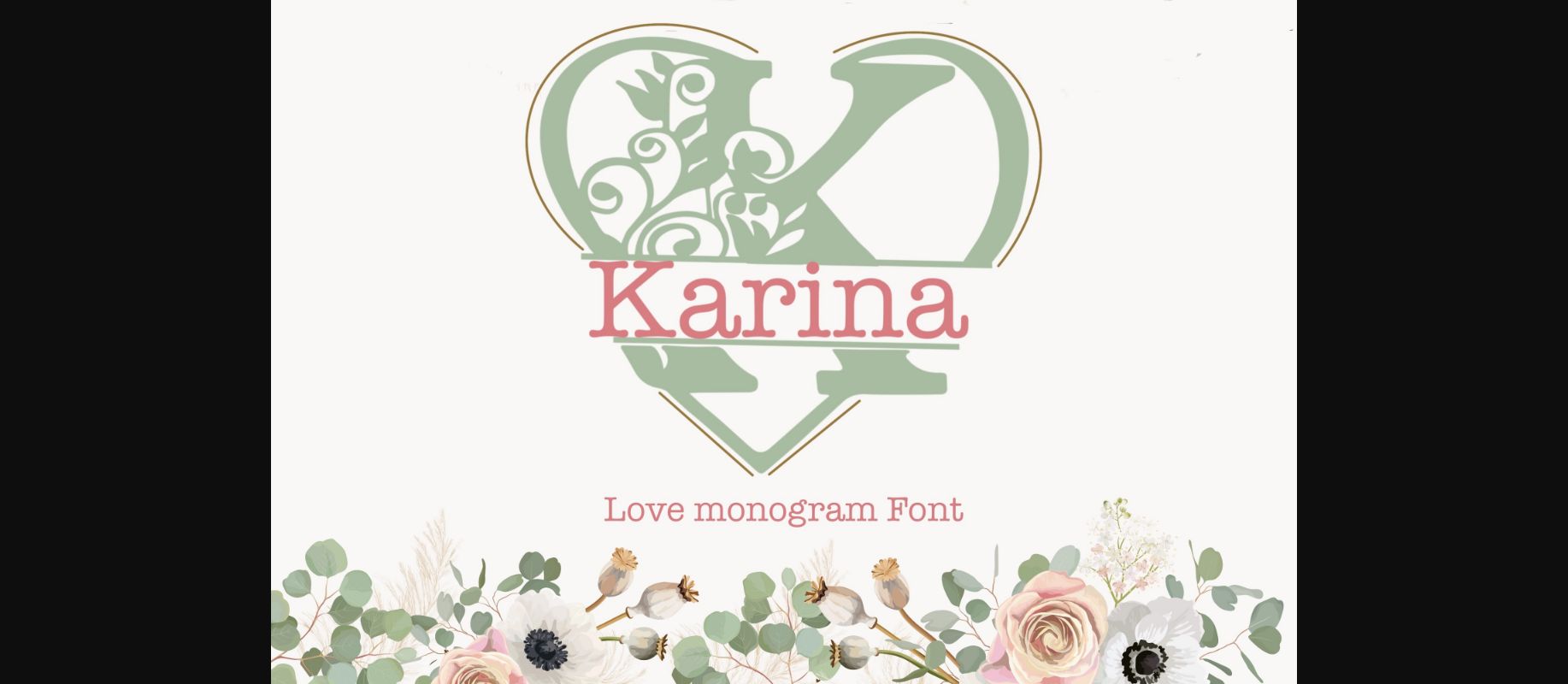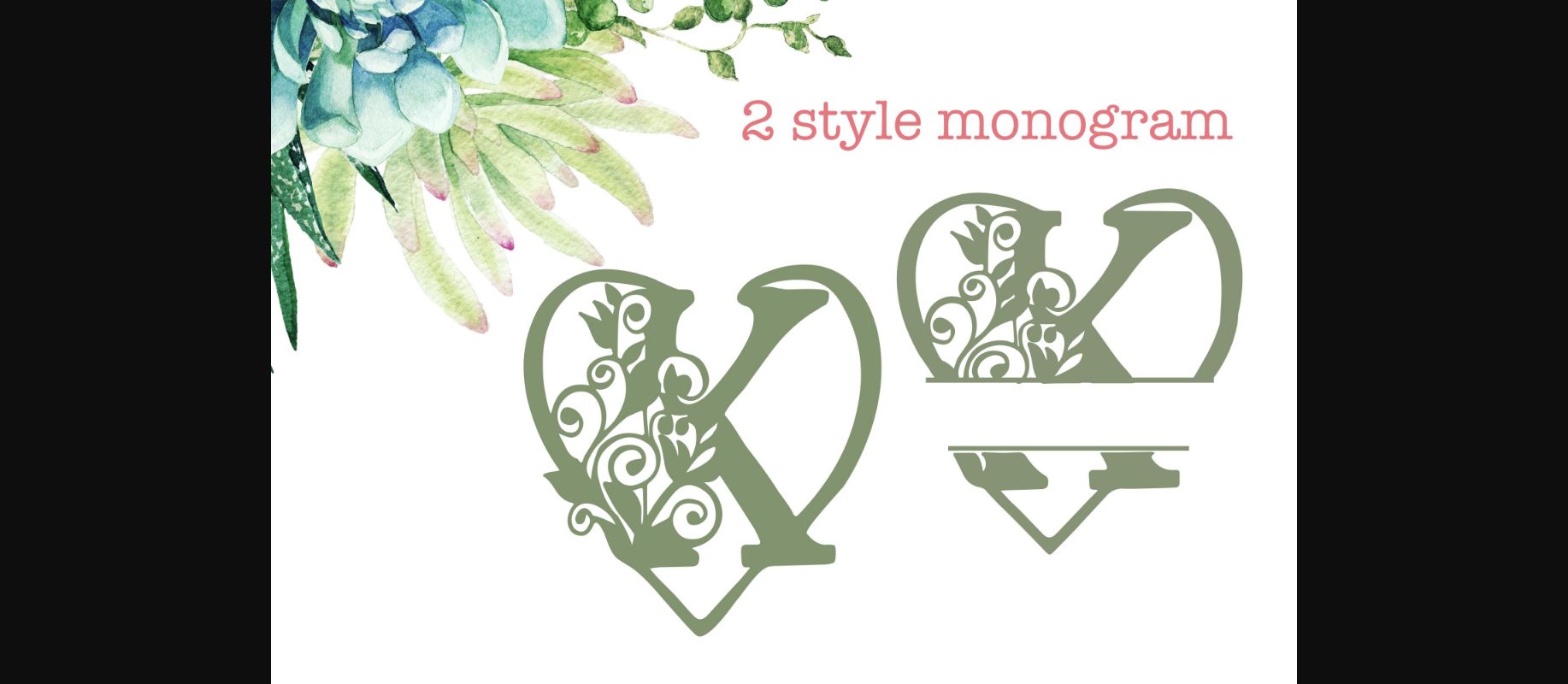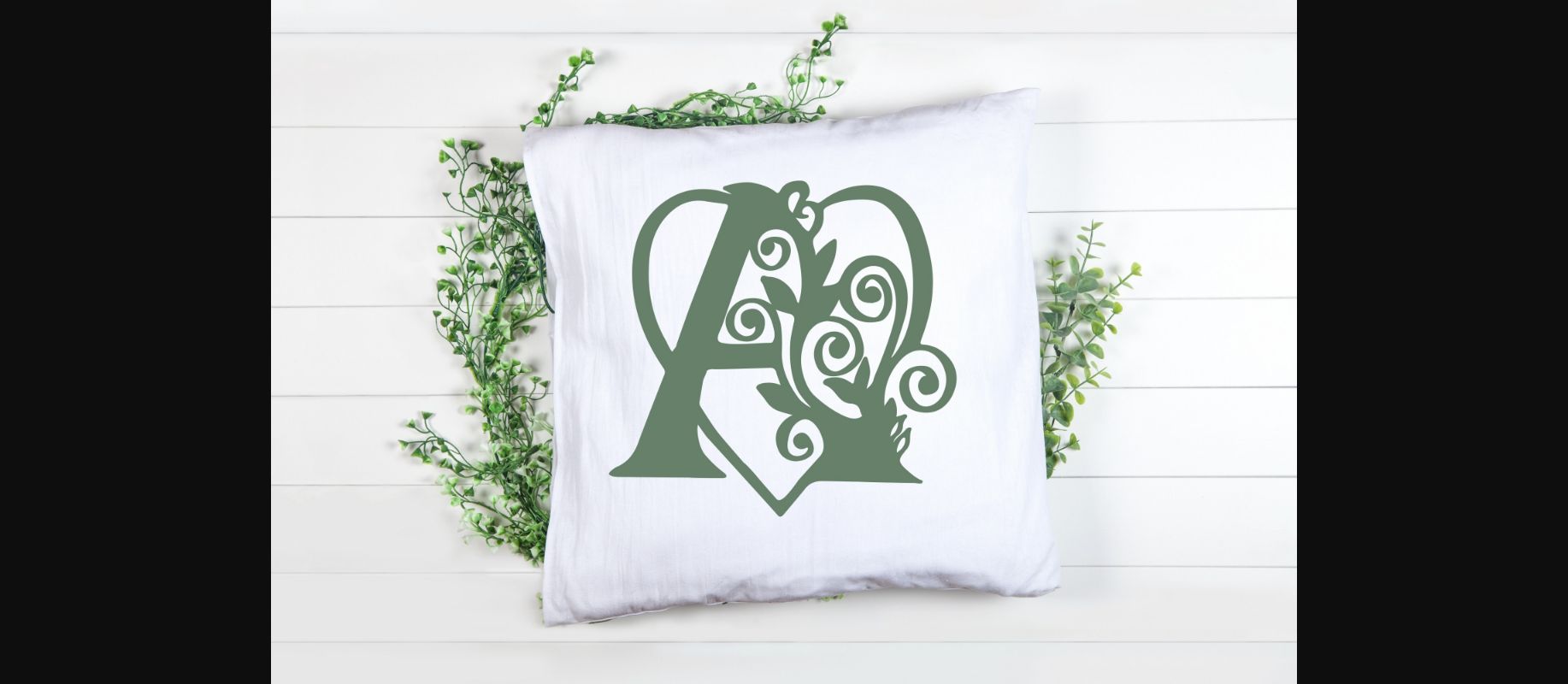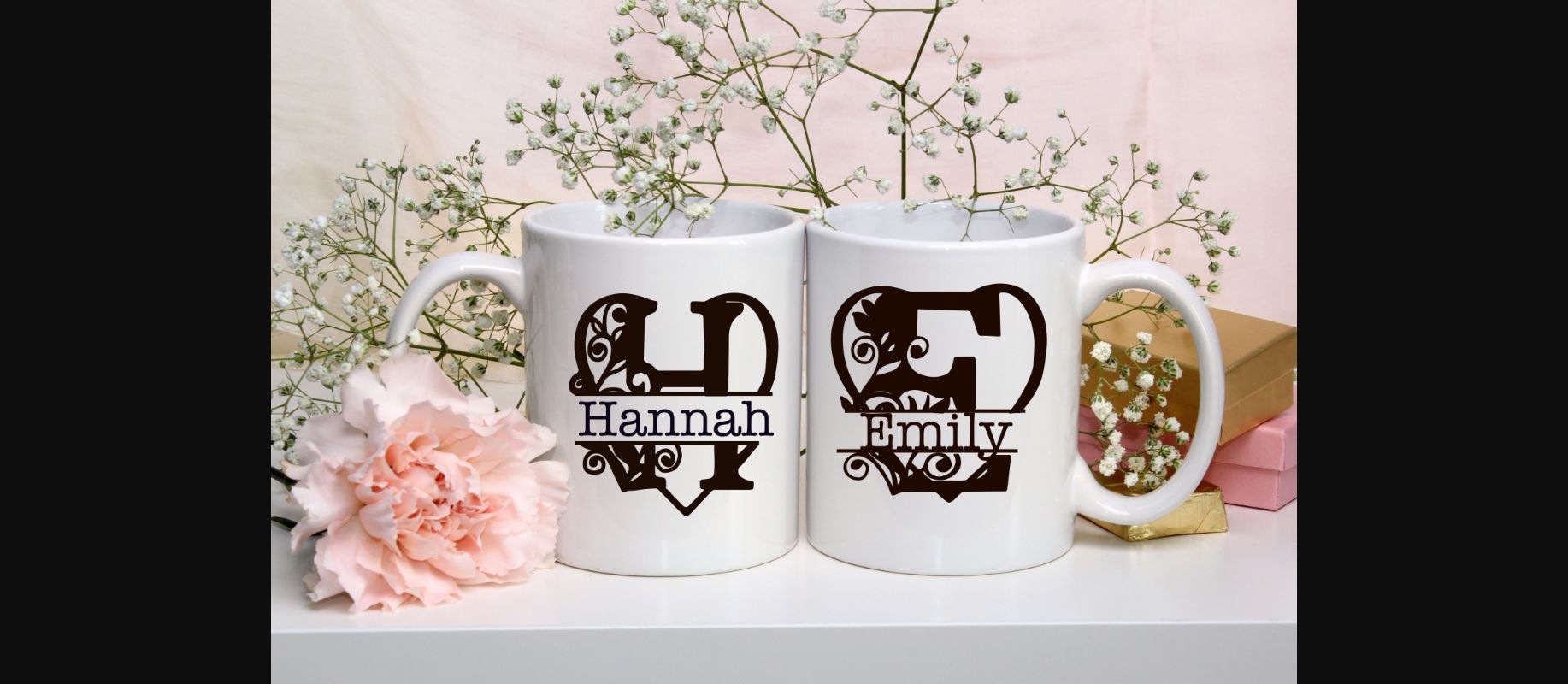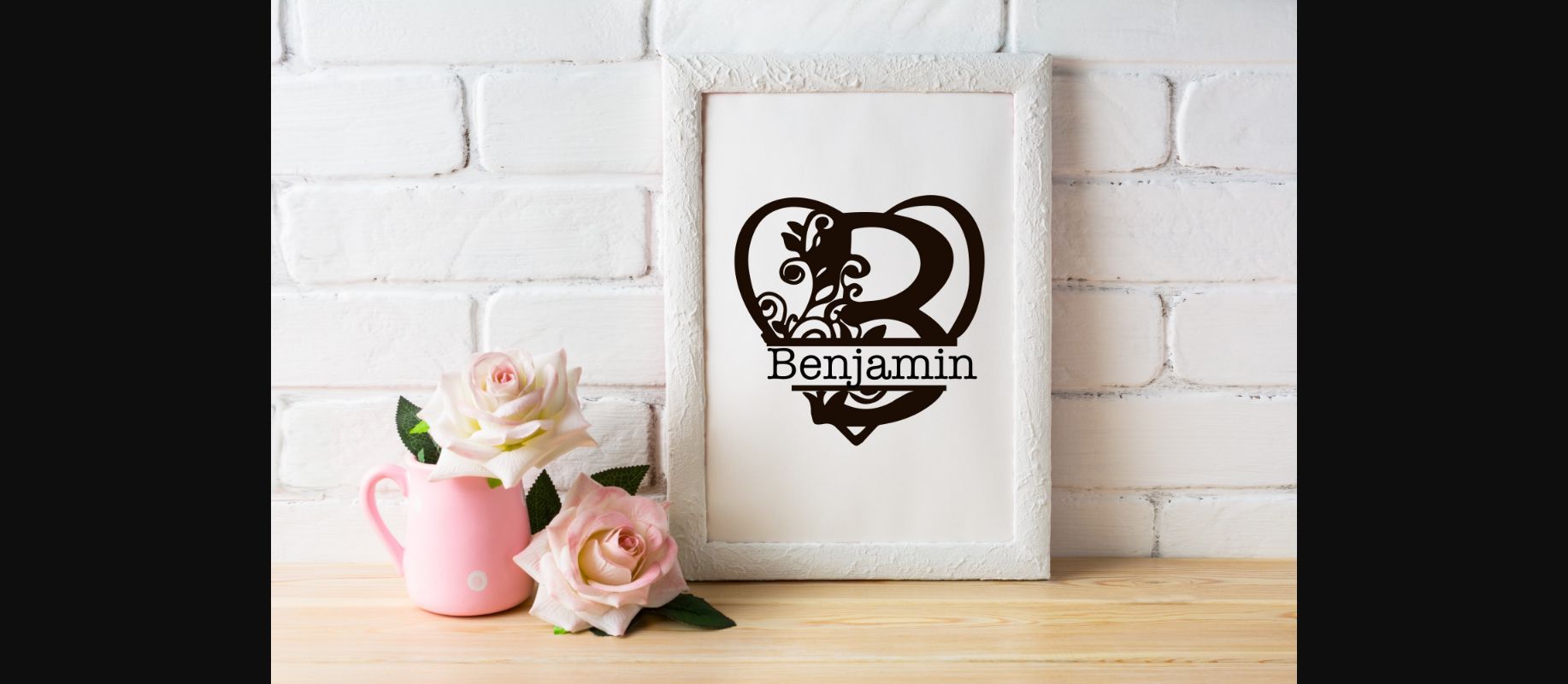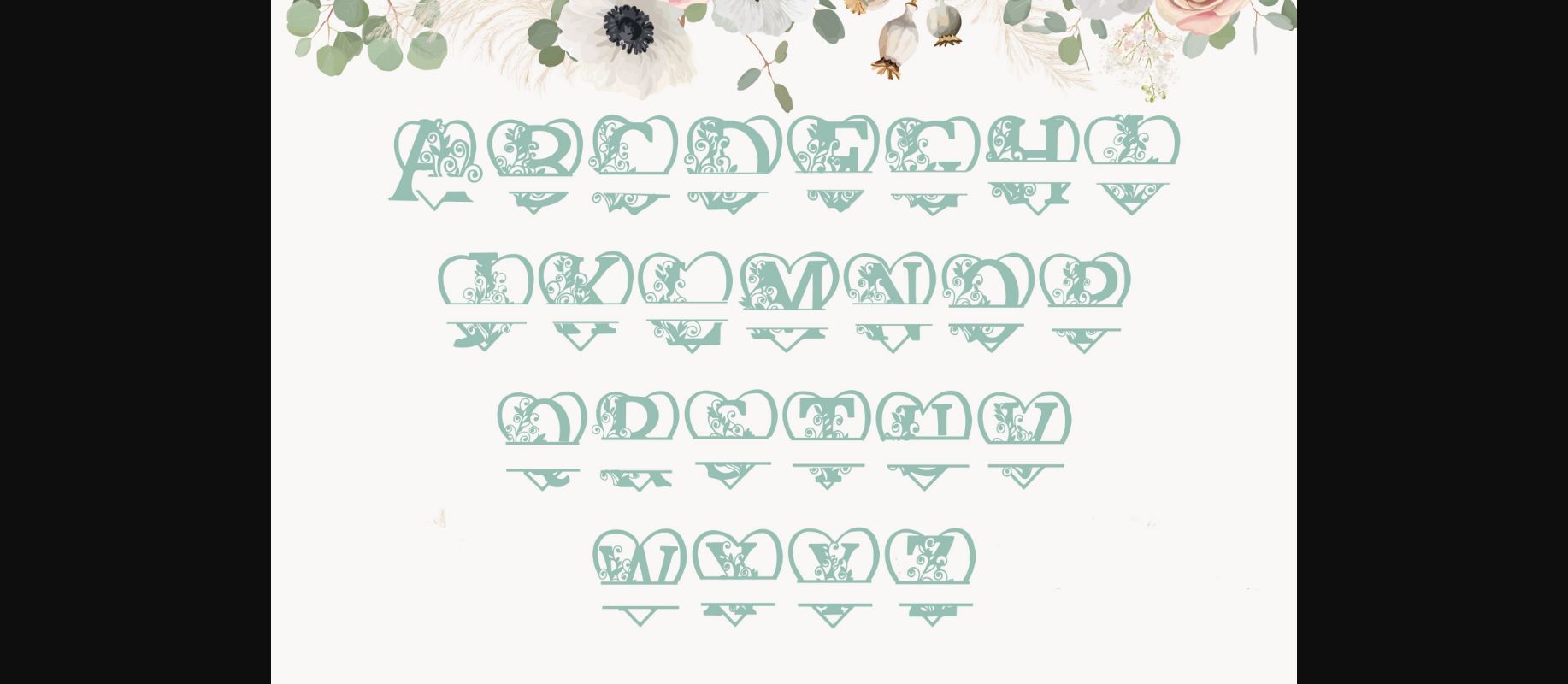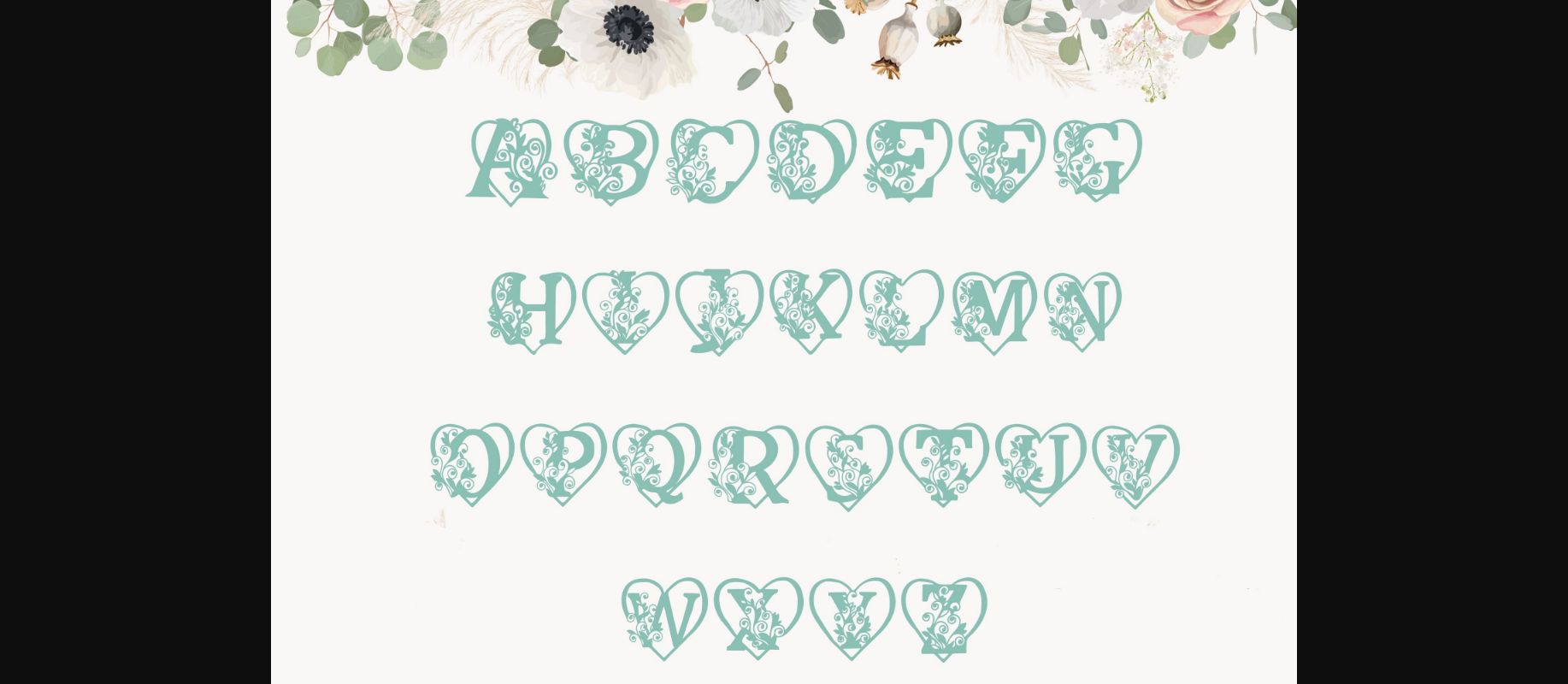
Karina Font
About Karina Font
Karina is a lovely decorative font. This font is ideal for writing Valentine cards, love letters and pretty much anything that requires a romantic touch.